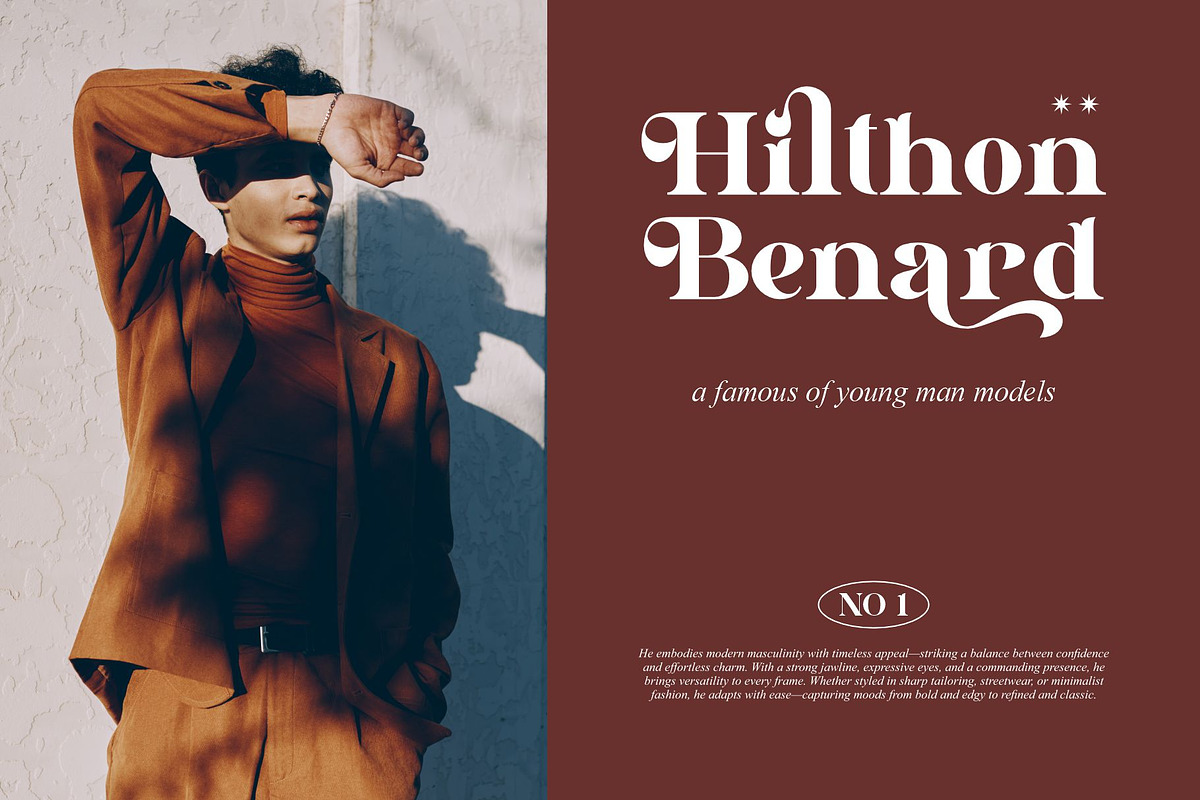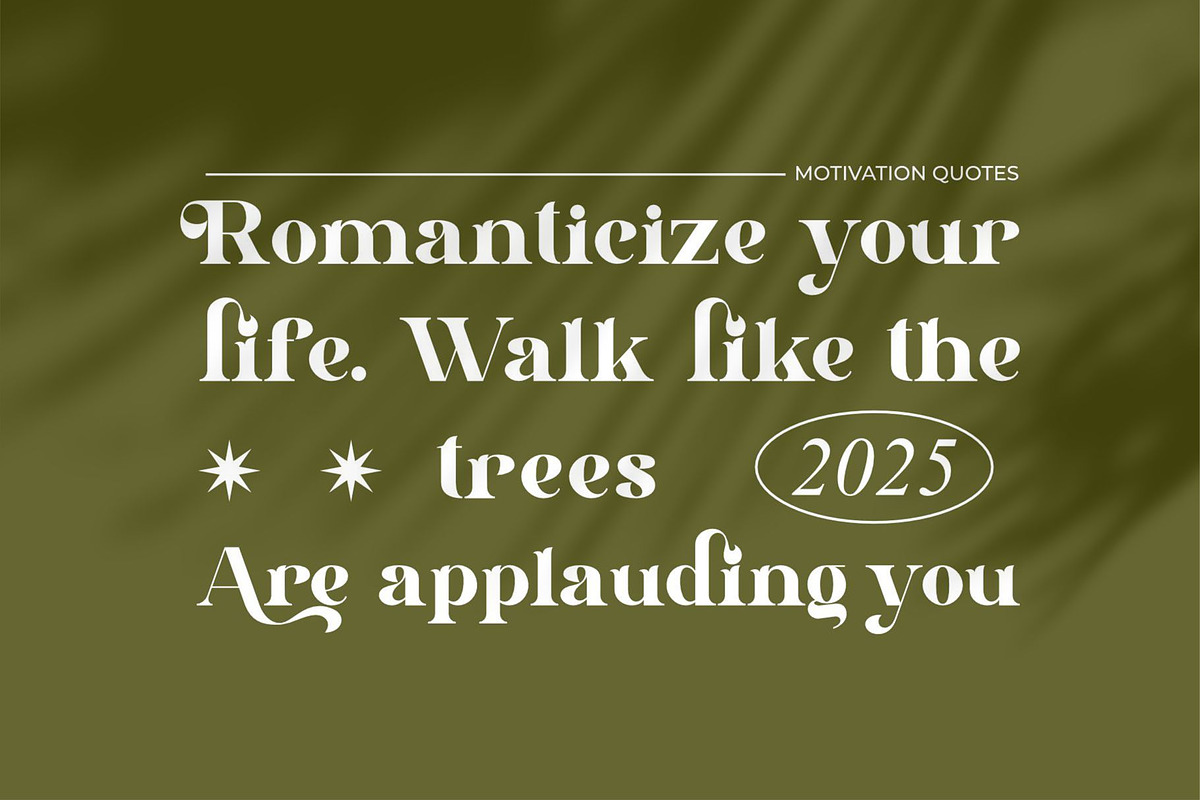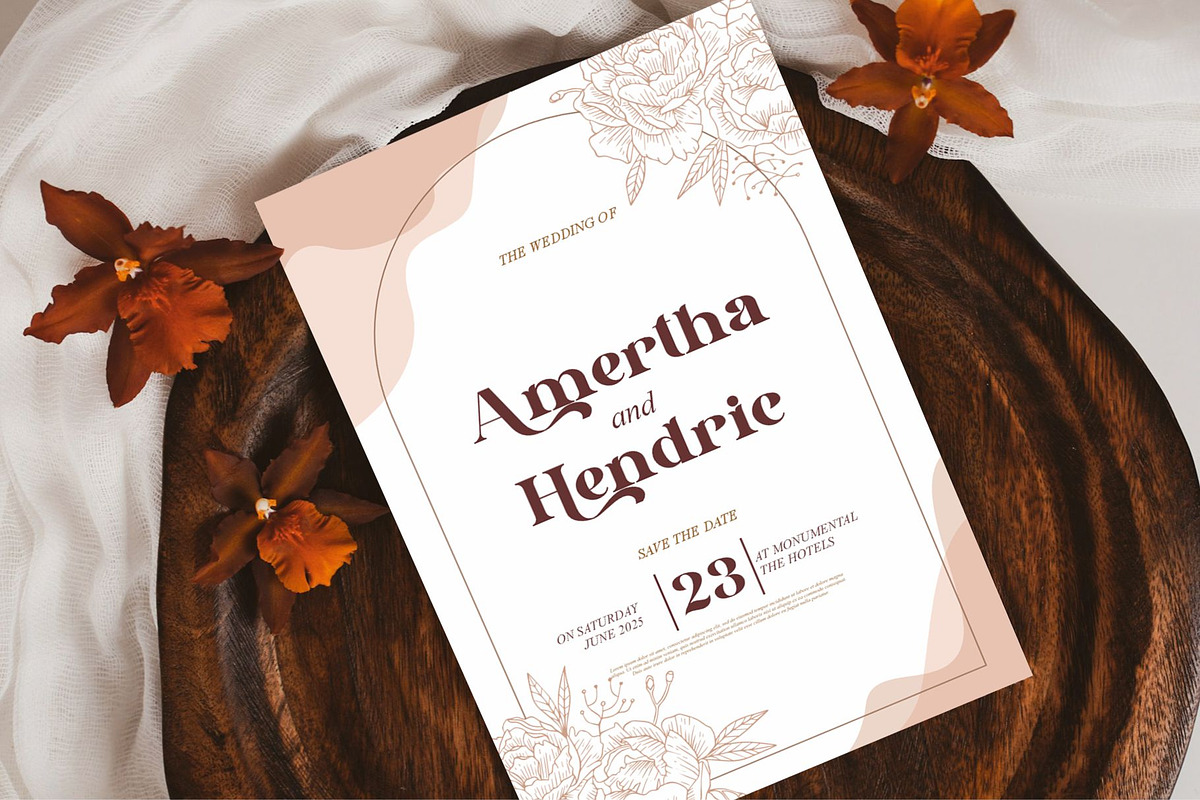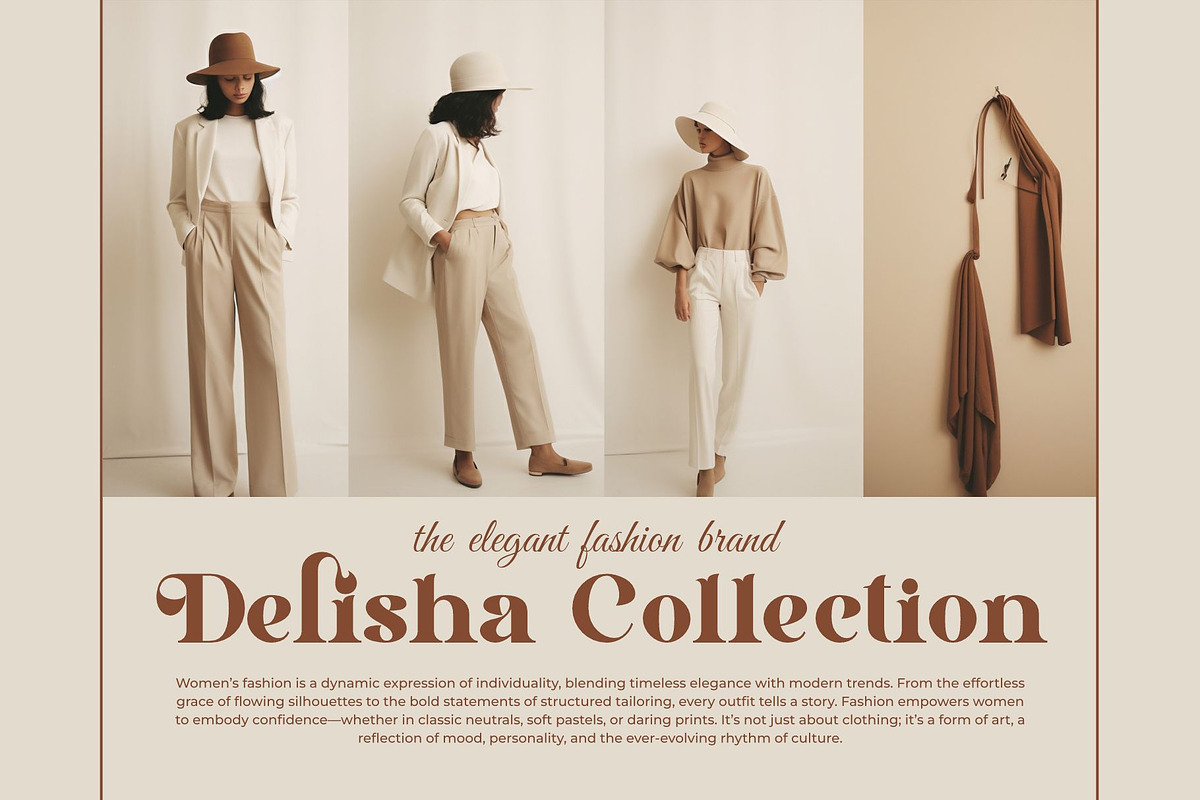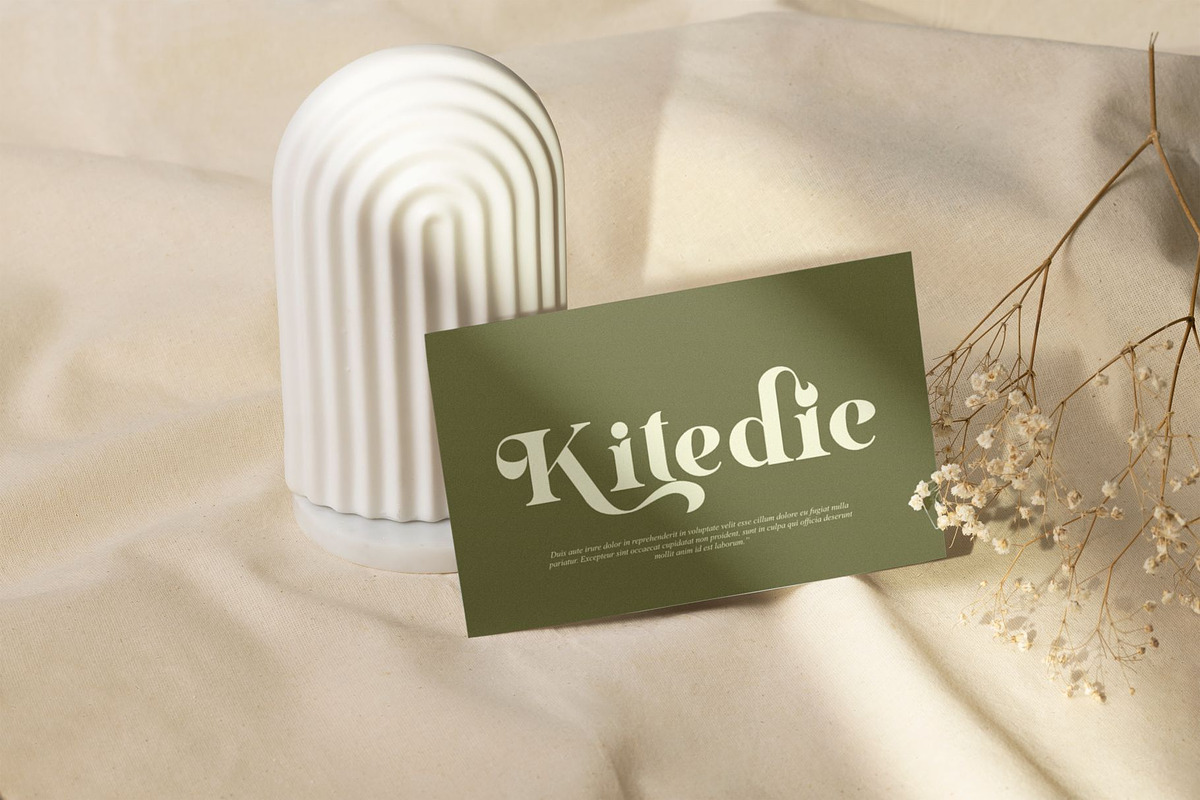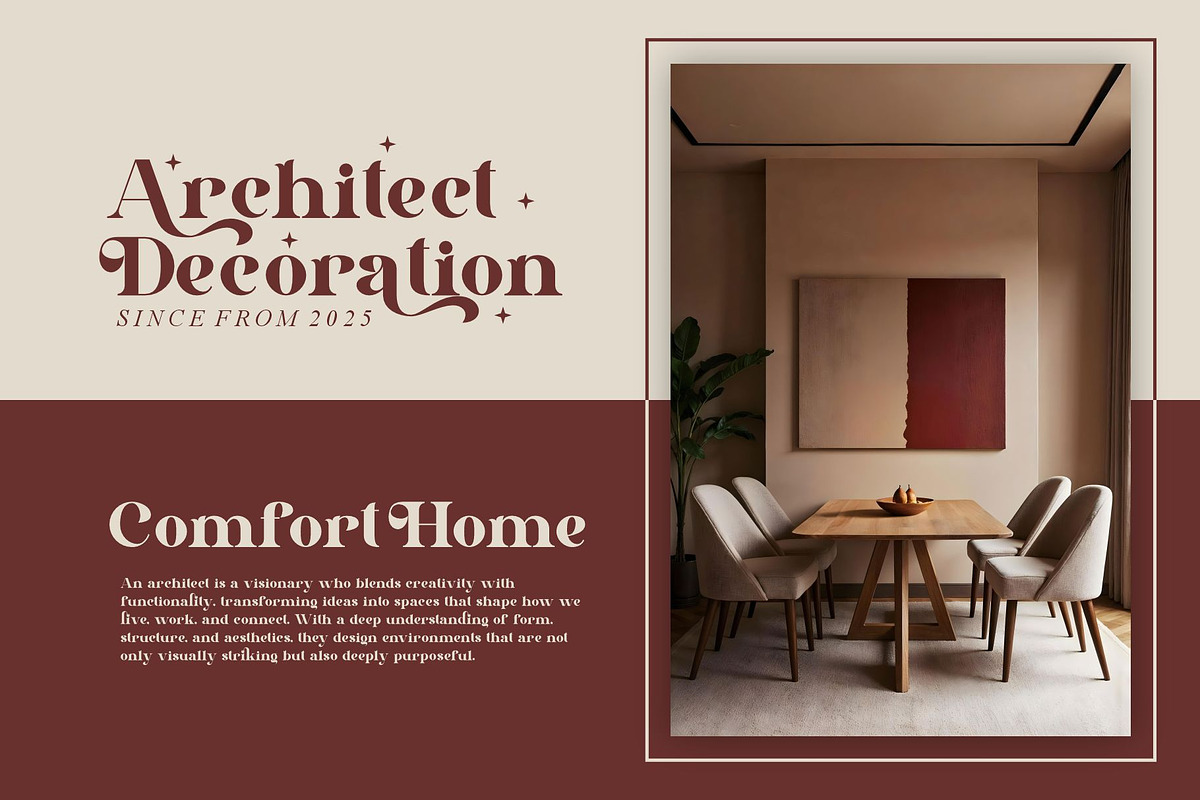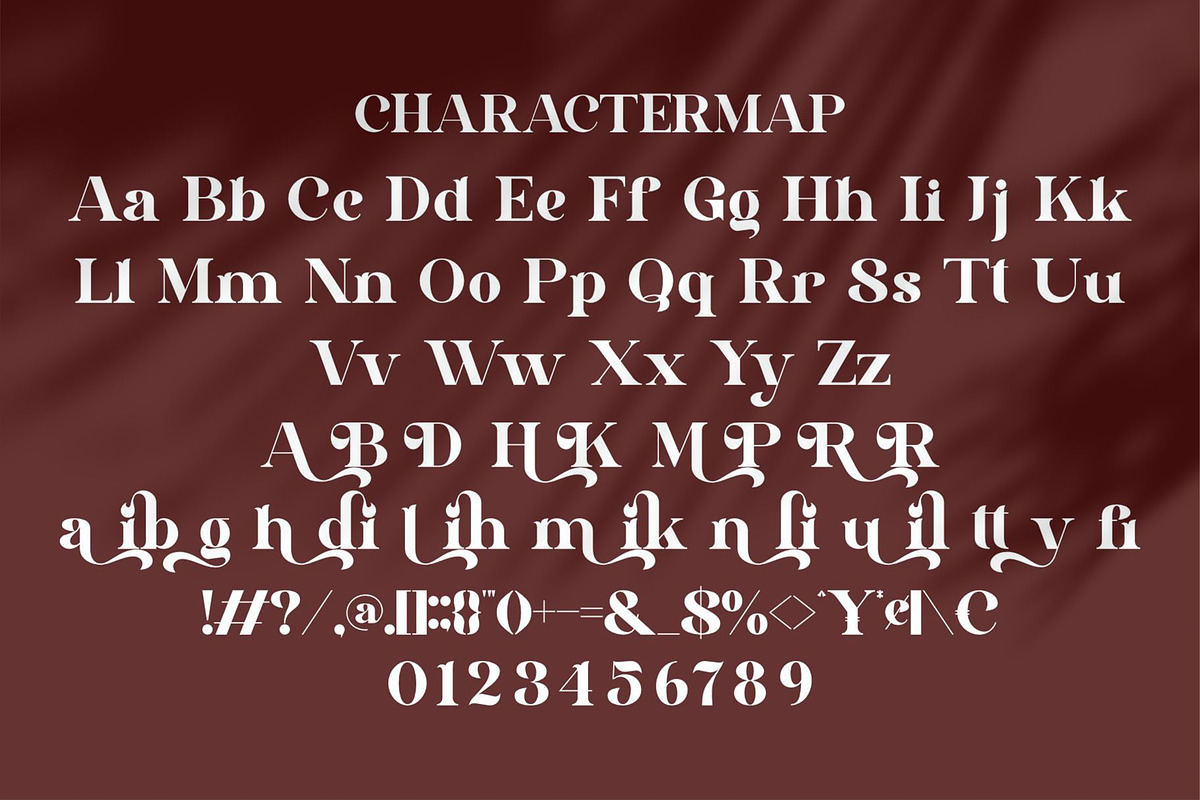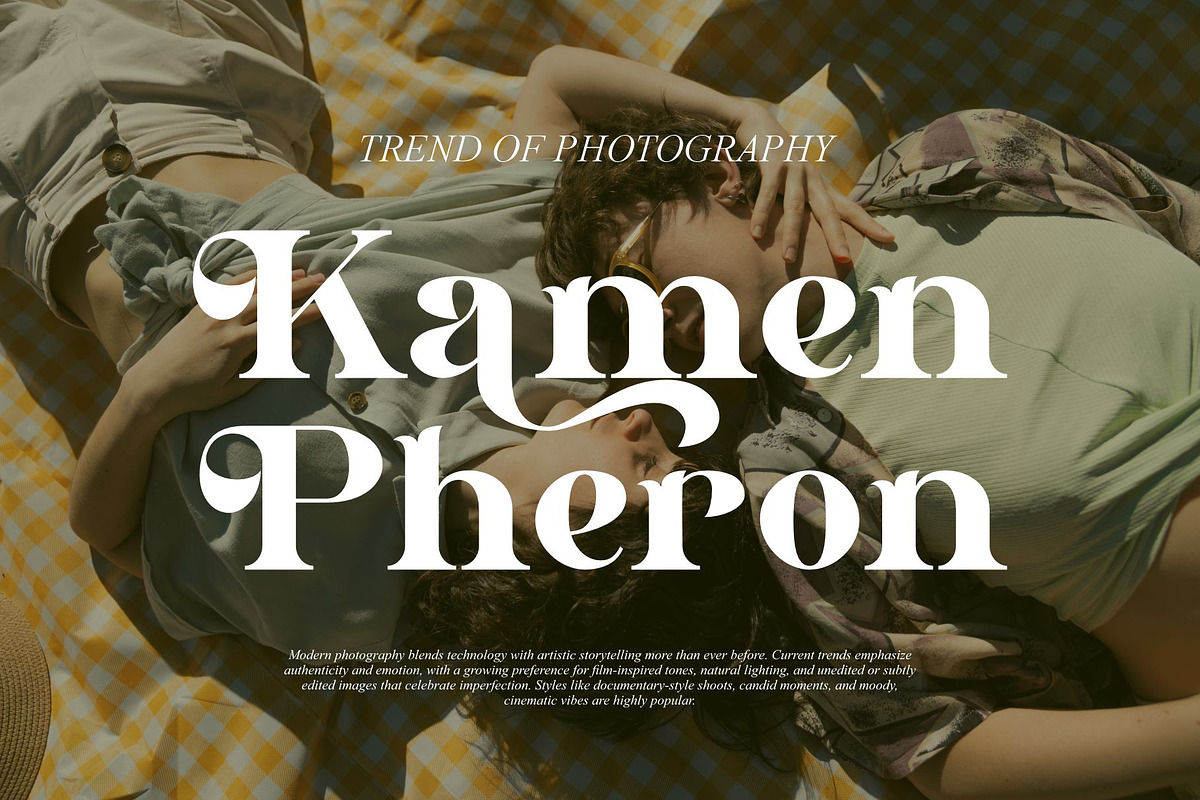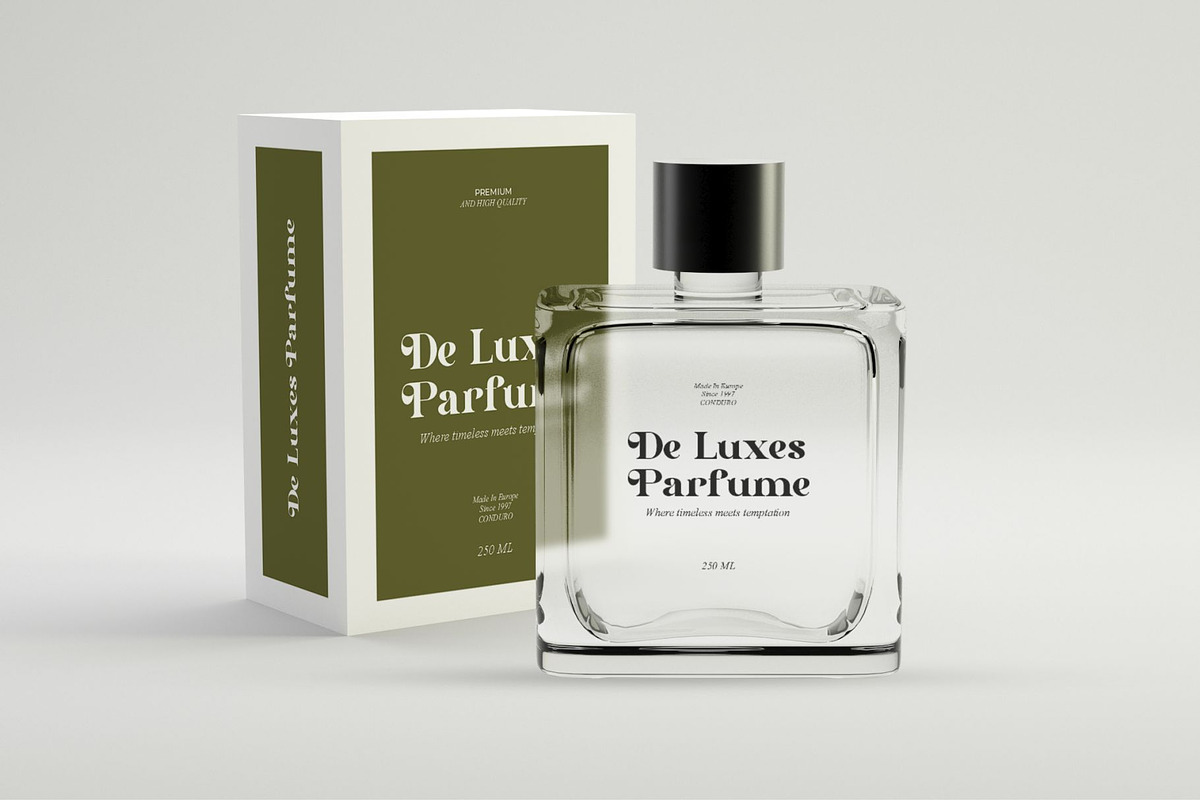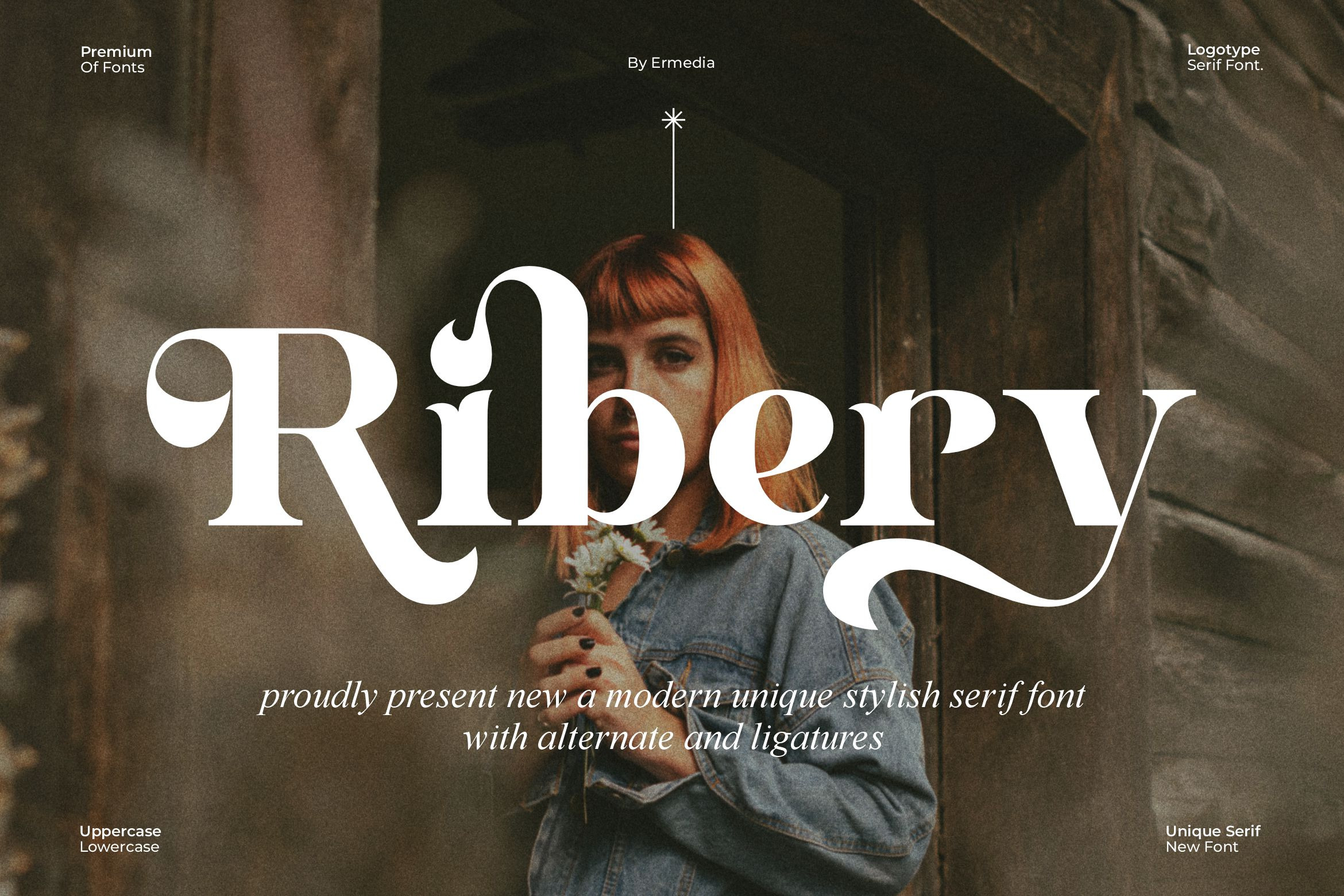
Ribery || Unique Serif Font
Ribery Serif is a unique and classy font type for all branding and logo designs. This unique and classy Serif font has a beautiful character. This font is suitable for invitation card designs, cool logos, movie titles, movie names, business cards, book titles, brand names, and various other designs. Ribery Serif is a smooth serif font that exudes sophistication and the moment. Its stylish ligatures make this font a perfect partner for any project.